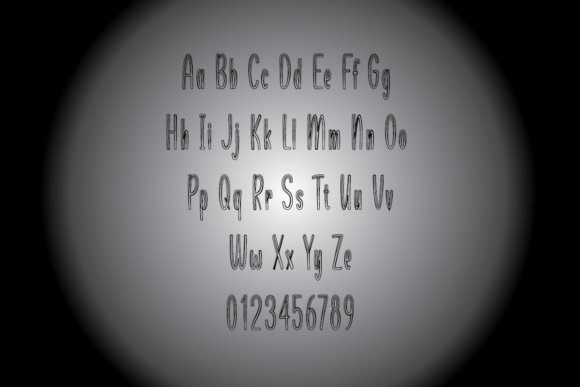
Introducing Ghosted Font: The Ultimate Decorative Font for Designers and Crafters
Are you tired of using the same old fonts in your designs? Look no further! Ghosted Font is a unique, fun, and attractive decorative font that’s perfect for adding a touch of personality to your projects. Whether you’re a designer, crafter, or DIY enthusiast, Ghosted Font is a versatile and exciting addition to your font collection.
What is Ghosted Font?
Ghosted Font is a decorative font that’s designed to add a playful and whimsical touch to your designs. Its unique and eye-catching style makes it perfect for a wide range of projects, from sublimation and clothing to greeting cards, advertisements, and more. With Ghosted Font, you can add a personal touch to your designs and make them stand out from the crowd.
What Can I Use Ghosted Font For?
The options are endless with Ghosted Font! This versatile font can be used for:
- Sublimation: Create stunning sublimation designs for t-shirts, mugs, and other products.
- Clothing: Add a personal touch to your clothing designs, from t-shirts to hoodies.
- Greeting Cards: Create unique and eye-catching greeting cards for special occasions.
- Advertisements: Make your ads stand out with Ghosted Font’s playful and attention-grabbing style.
- Birthday Parties: Create fun and festive designs for birthday parties and celebrations.
- Quotes and Titles: Add a touch of personality to your quotes, titles, and headings.
- Brand Names: Create a unique and memorable brand identity with Ghosted Font.
- Book Covers: Design eye-catching book covers that will grab readers’ attention.
- Holidays: Create festive and fun designs for holidays and special occasions.
Why Choose Ghosted Font?
So why choose Ghosted Font over other decorative fonts? Here are just a few reasons:
- Unique Style: Ghosted Font has a one-of-a-kind style that’s sure to make your designs stand out.
- Versatility: This font can be used for a wide range of projects, from digital designs to print materials.
- High-Quality: This font is designed with high-quality and clarity in mind, ensuring that your designs look professional and polished.
Tips for Using Ghosted Font
Here are a few tips for getting the most out of Ghosted Font:
- Experiment with Colors: Ghosted Font looks great in a variety of colors, so don’t be afraid to experiment and find the perfect hue for your design.
- Mix and Match: Combine Ghosted Font with other fonts and design elements to create a unique and eye-catching design.
- Play with Sizes: Ghosted Font looks great in a range of sizes, from small and delicate to large and bold.
- Use it for Headlines: Ghosted Font is perfect for headlines and titles, adding a touch of personality and whimsy to your designs.